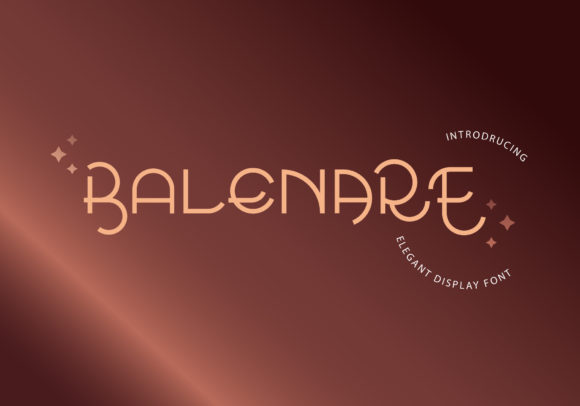
**Balenare: The Font of Enchanting Elegance and Clarity**
Indulge in the allure of Balenare, a sans-serif masterpiece that elevates your designs to a realm of sophistication. Its clean lines and graceful curves exude an air of timeless elegance, making it the perfect choice for branding, logos, and captivating headlines.
With Balenare, the world of digital display becomes a vibrant and enchanting canvas. Its crisp and legible characters ensure that your words will resonate with unmatched clarity, whether displayed on LCD screens or high-resolution print materials.
But Balenare's versatility extends far beyond the digital realm. Its alluring style adds a touch of magic to magazines, flyers, and social media posts, captivating readers and followers with its undeniable charm. Embrace the allure of Balenare, and watch as your creations bloom with an ethereal beauty that leaves a lasting impression.